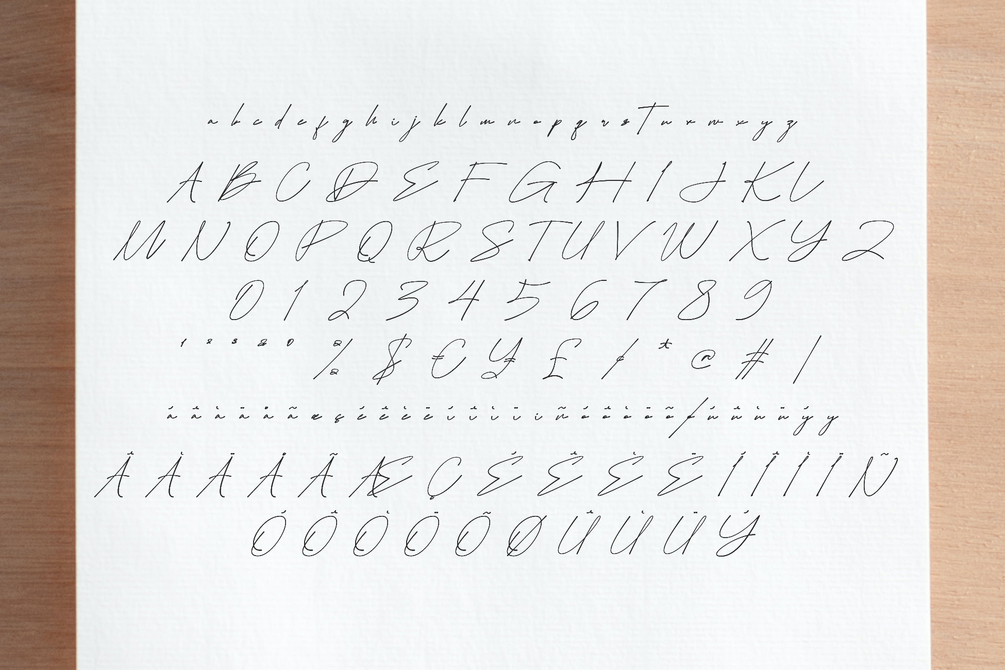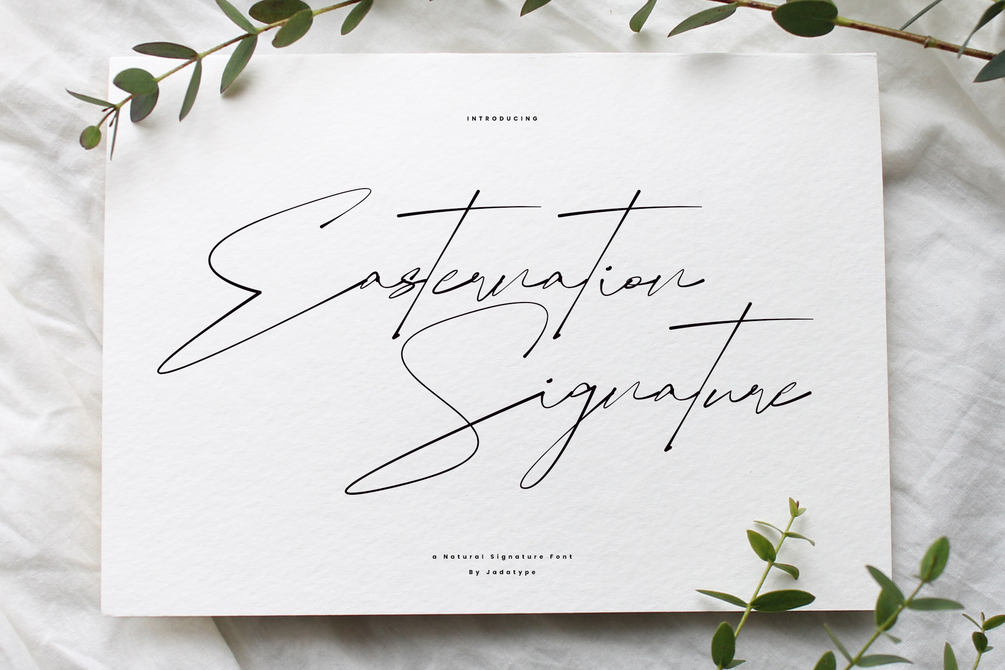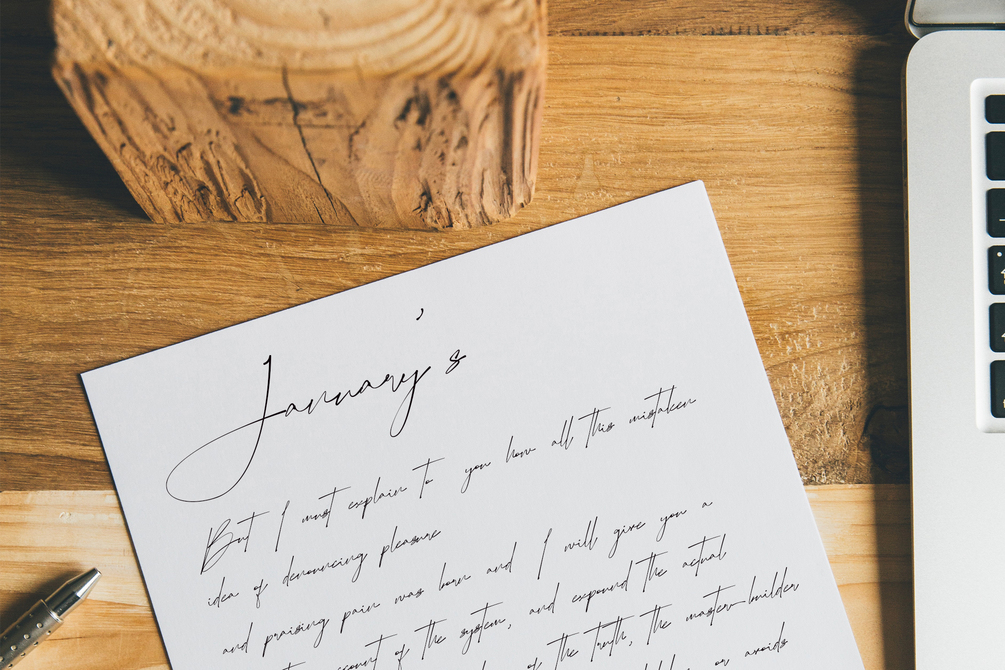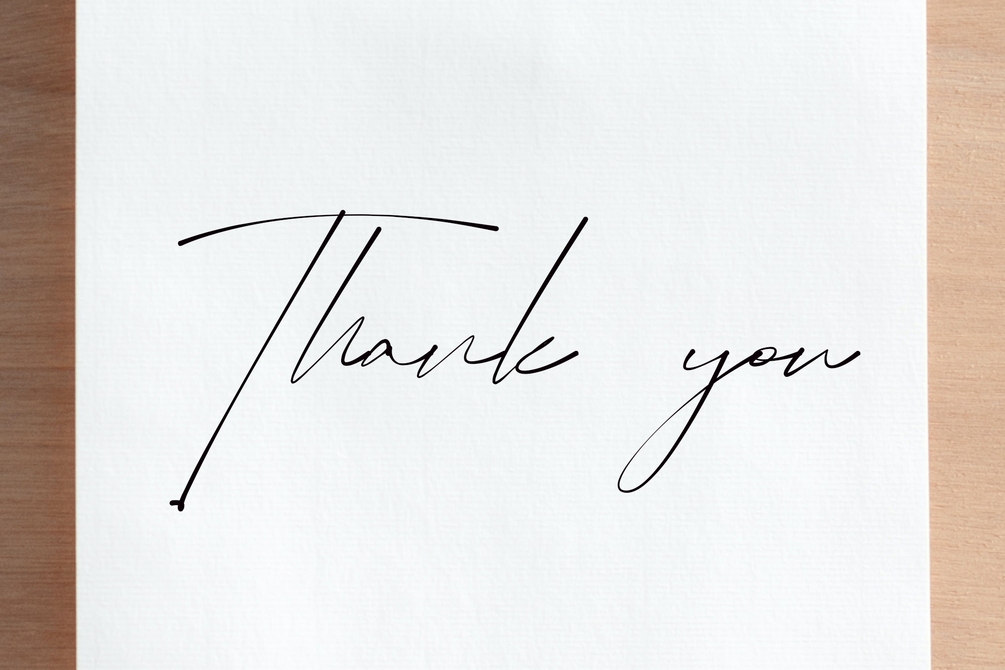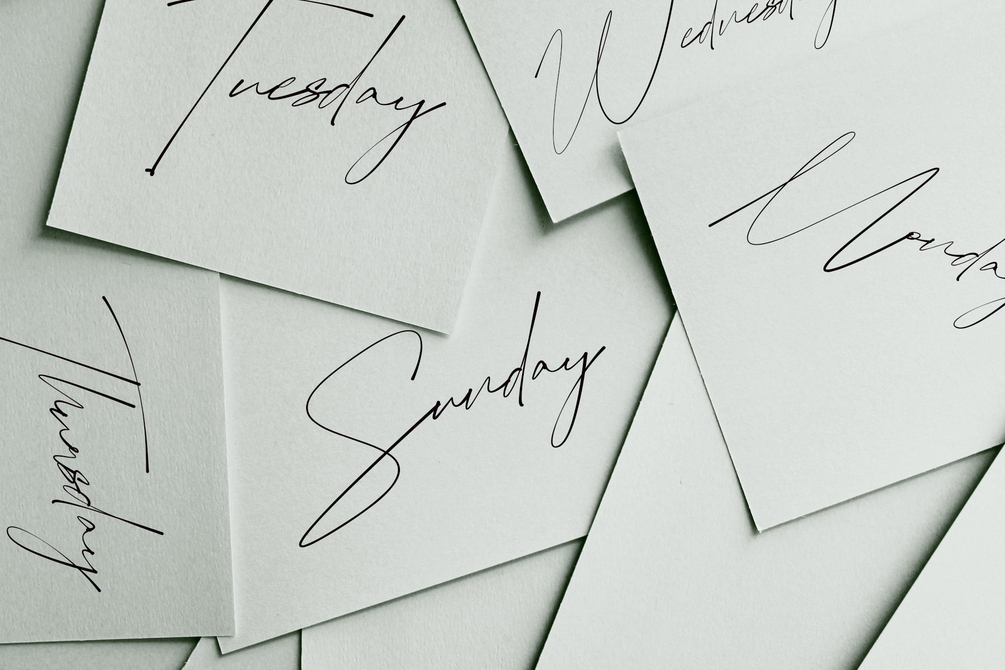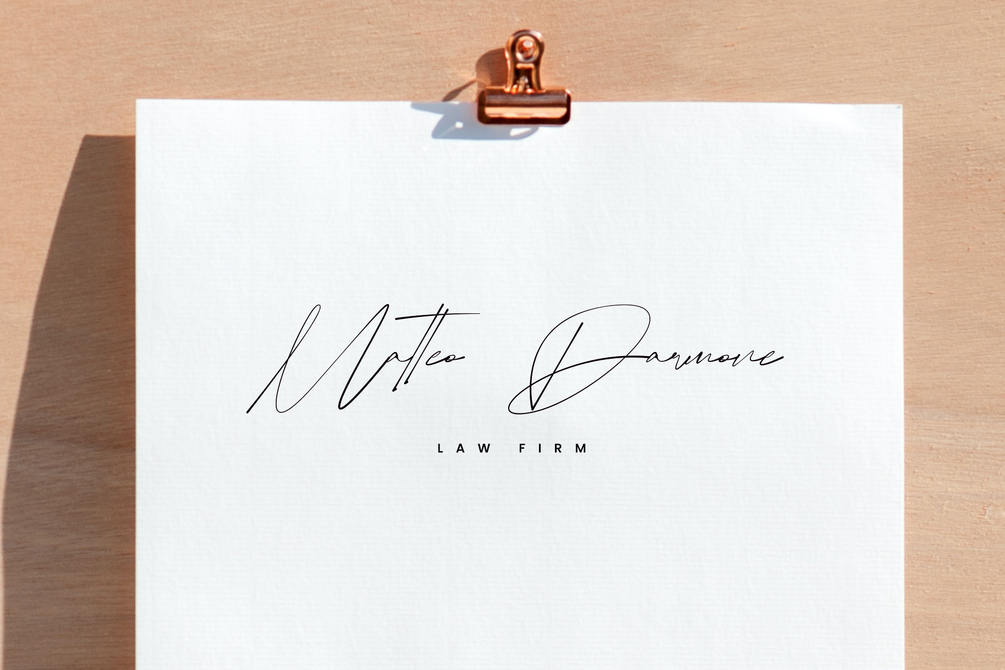
Easternation Signature Font
Easternation Signature is a font with a Natural signature feel. suitable for branding, logotype, signature, music cover, social media, products, and so on. contains standard English letters, numbers, punctuation, and several accents that support multilingualism.